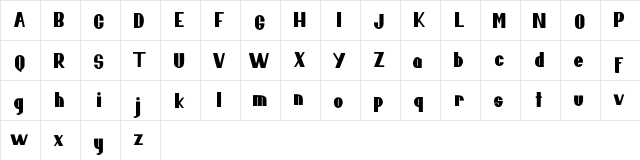
Bagela FREE Regular
Design Context for Bagela FREE Typeface
Bagela FREE is a composed and adaptable typeface that performs quietly and consistently across a wide range of design contexts.